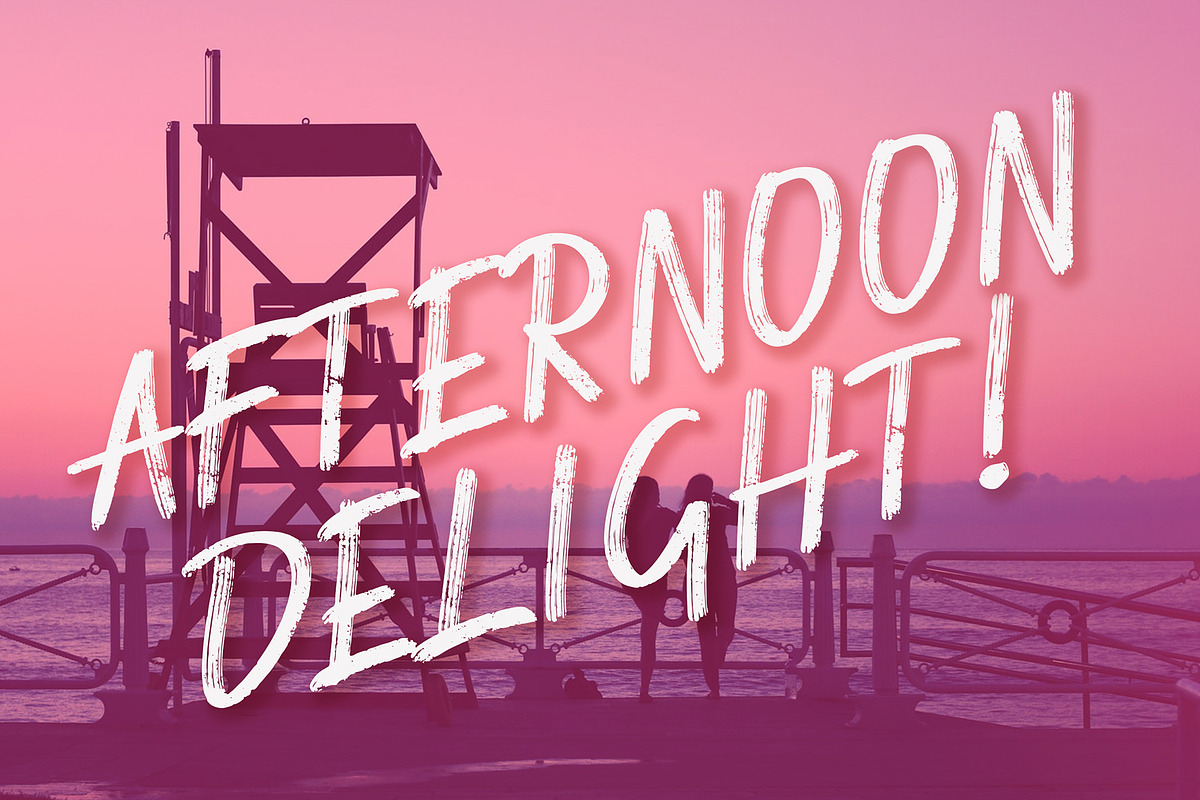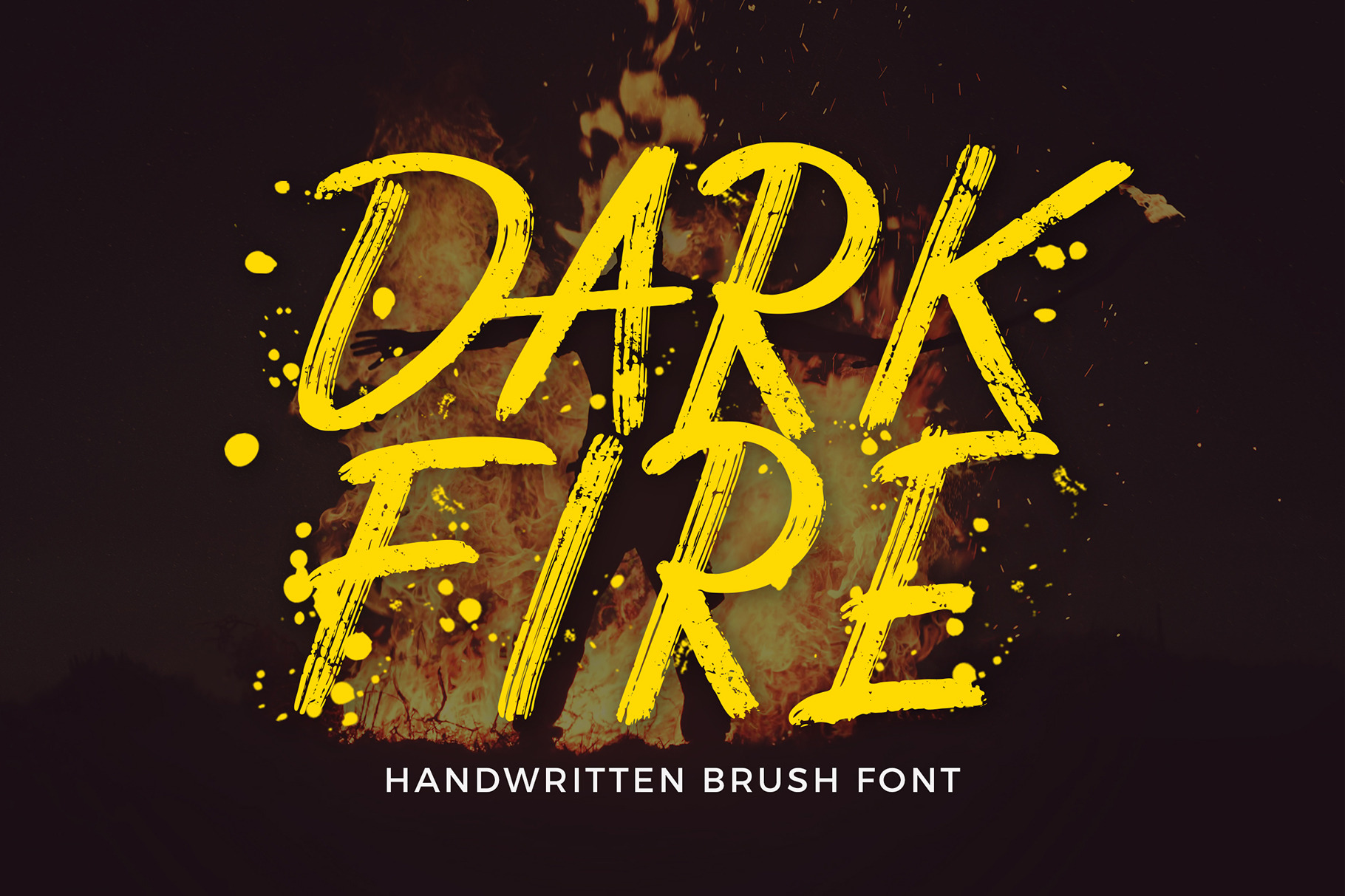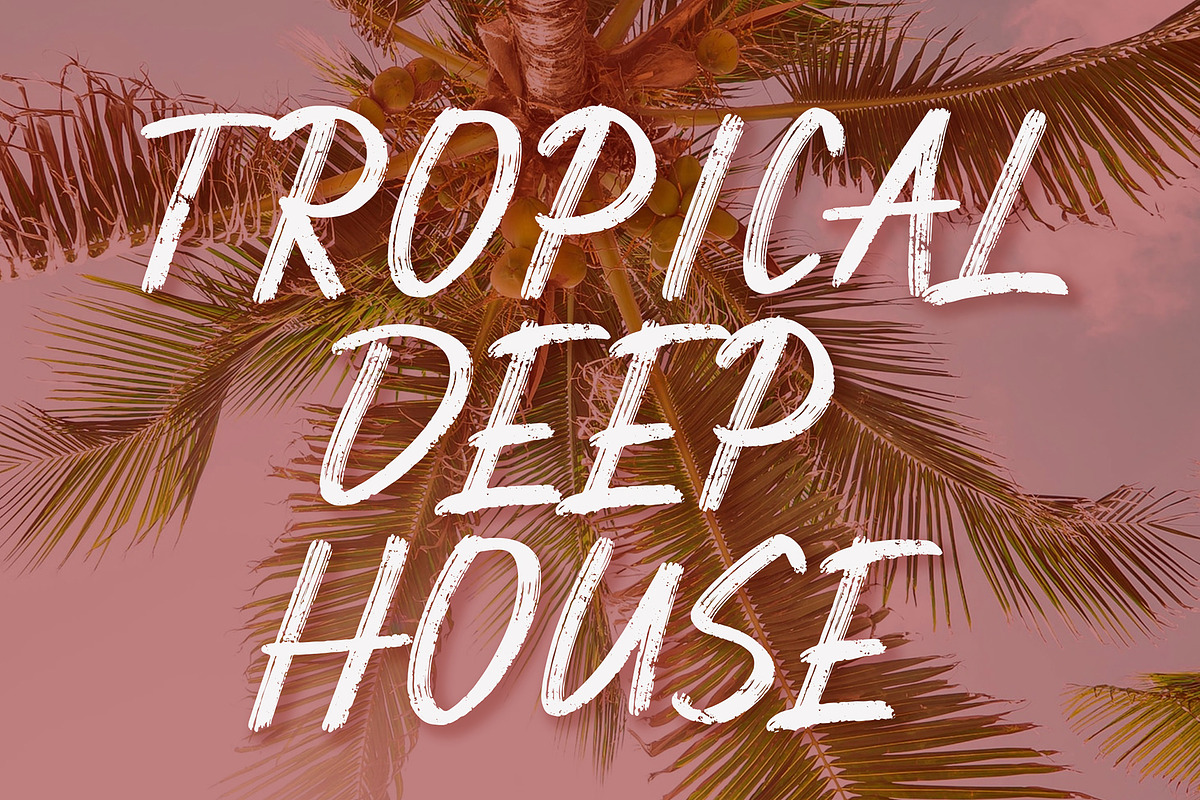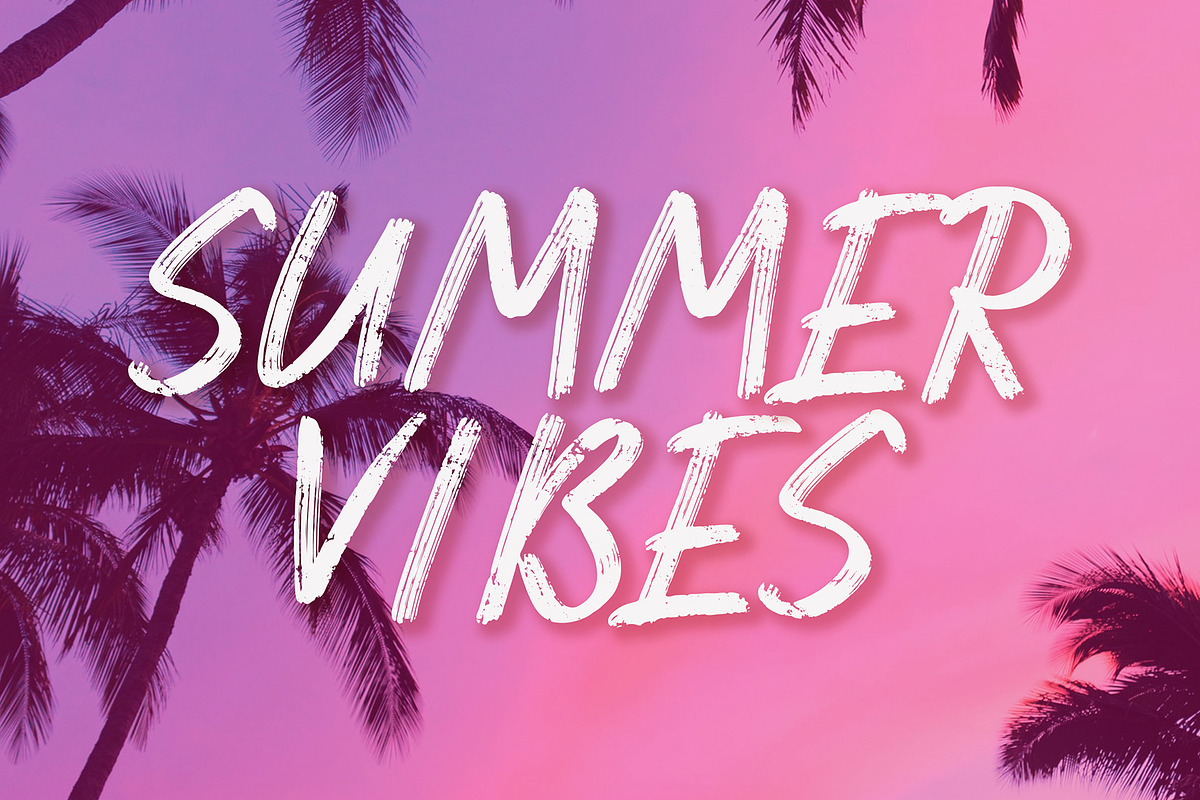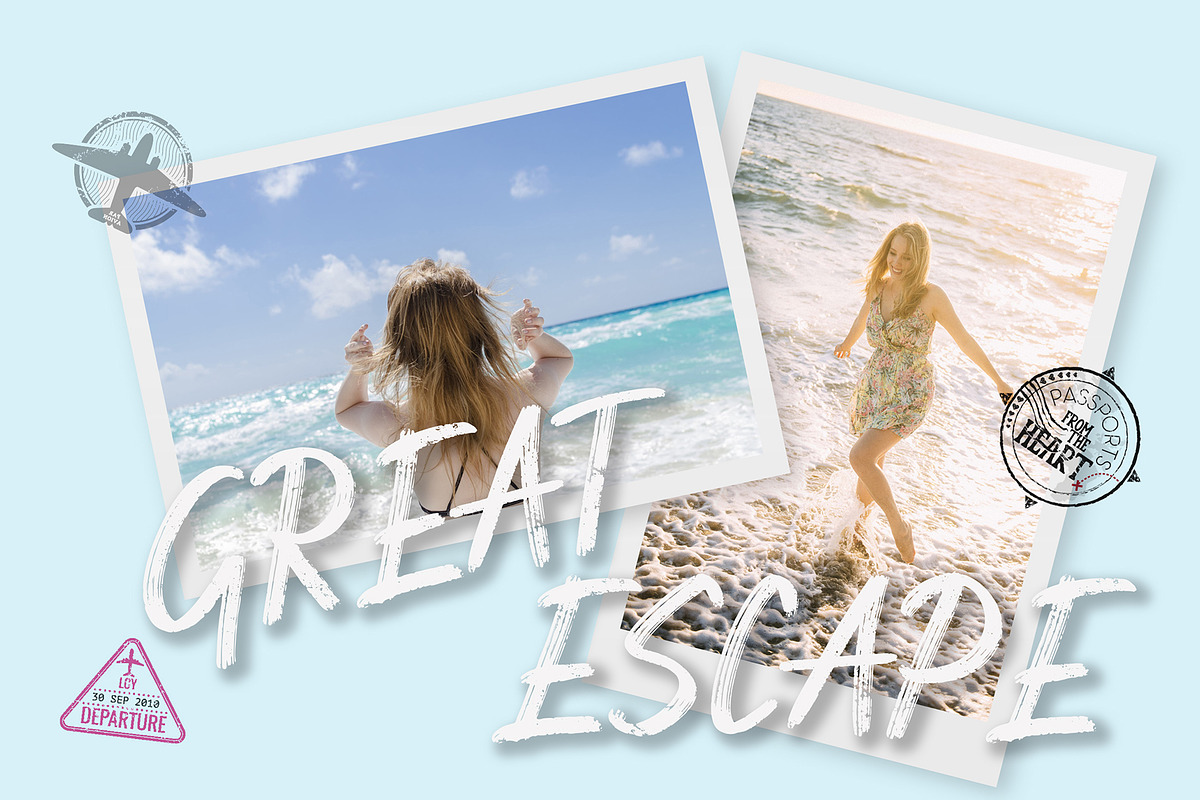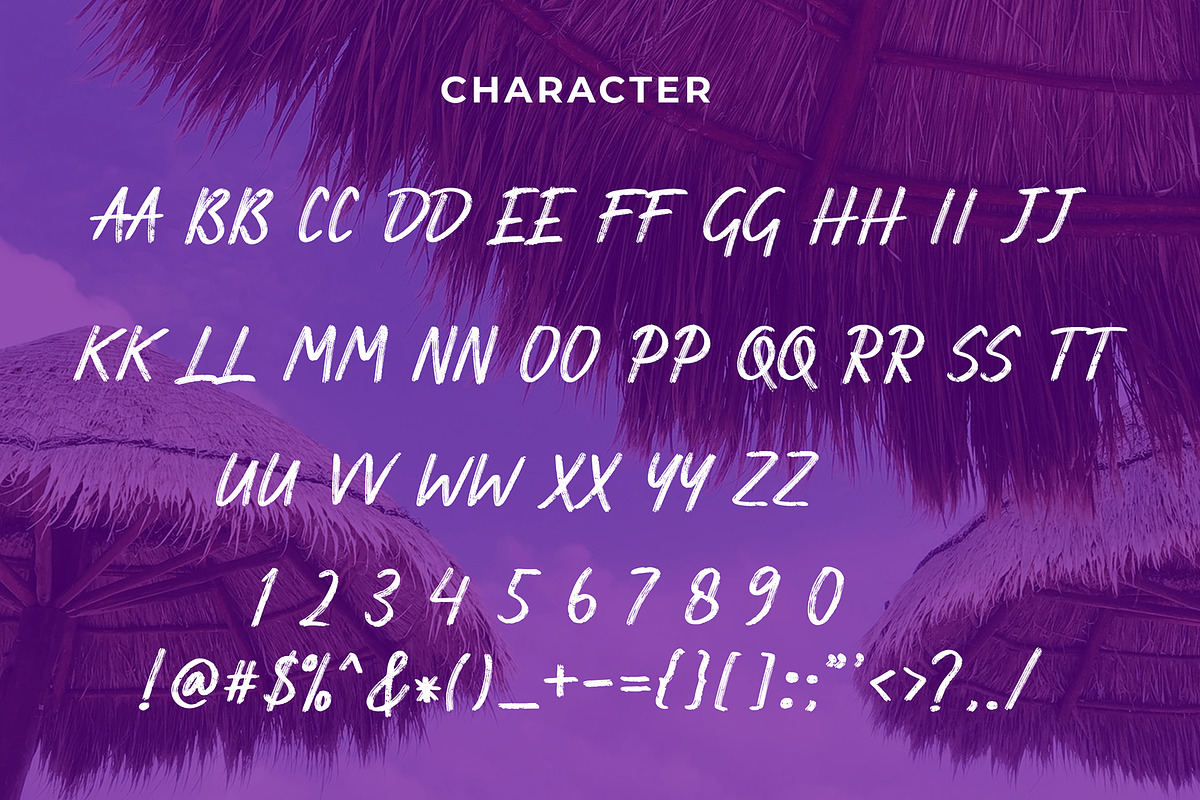
Dark Fire Brush Font
Dark Fire is handwritten font with brush style. This font perfect for branding projects, logo, tshirt designs, social media posts, advertisements, product packaging, product designs, label, watermark, invitation, stationery and any projects